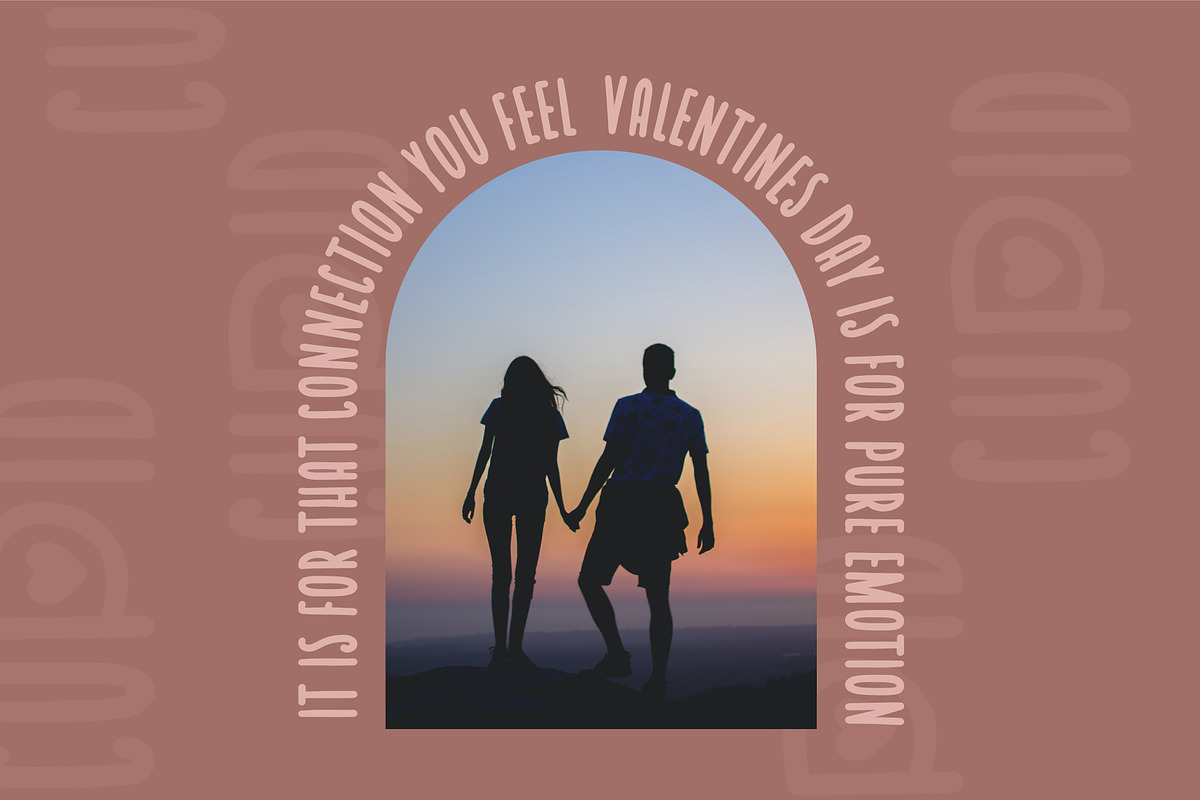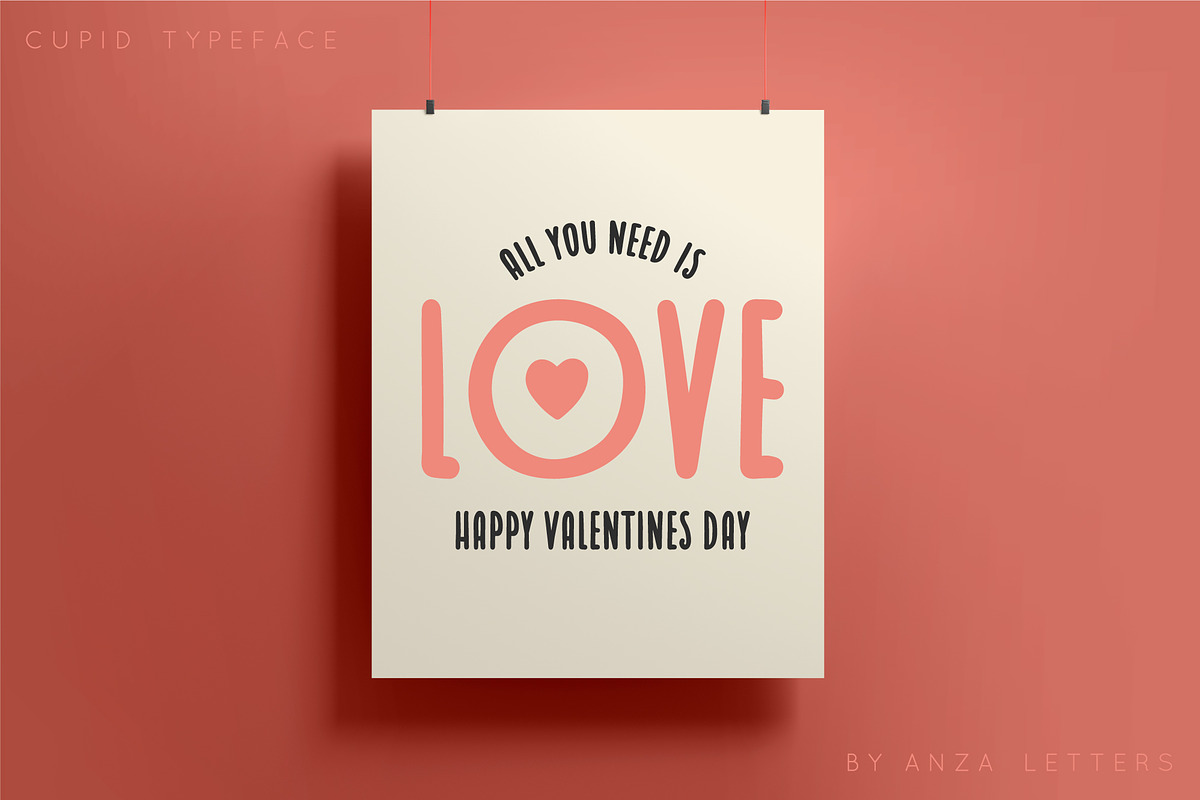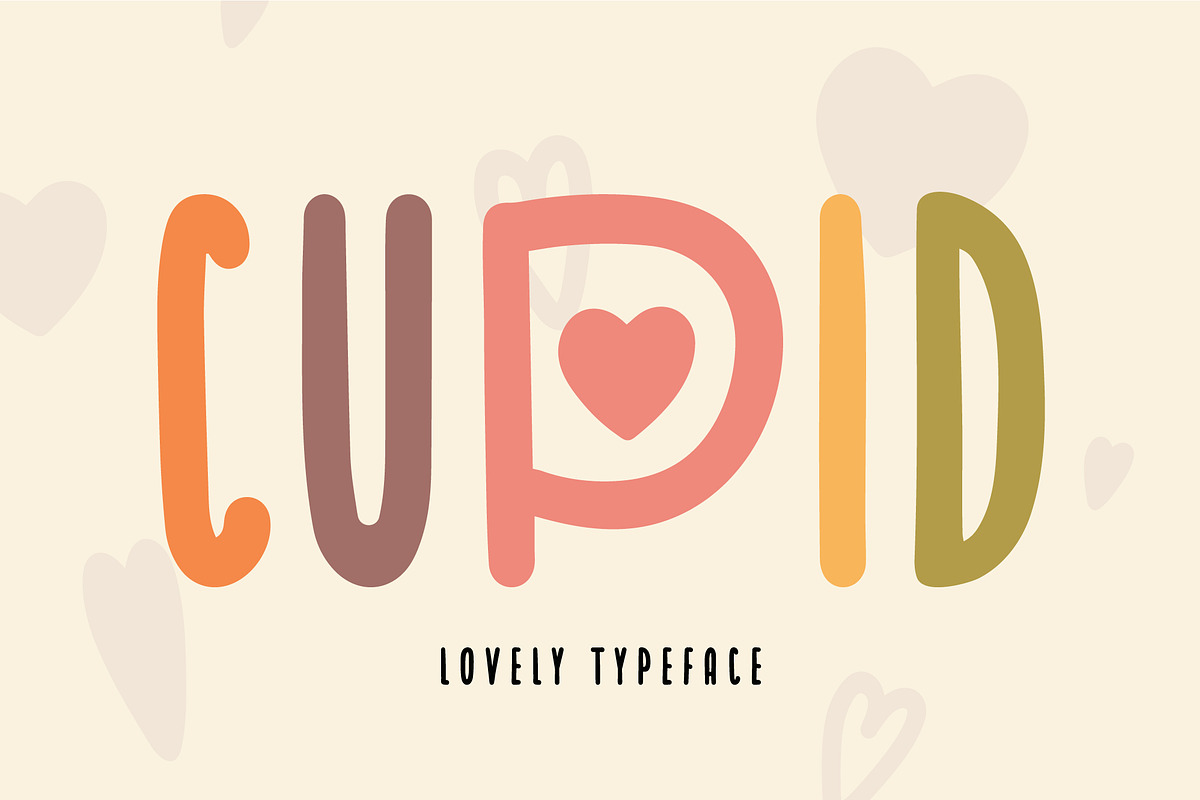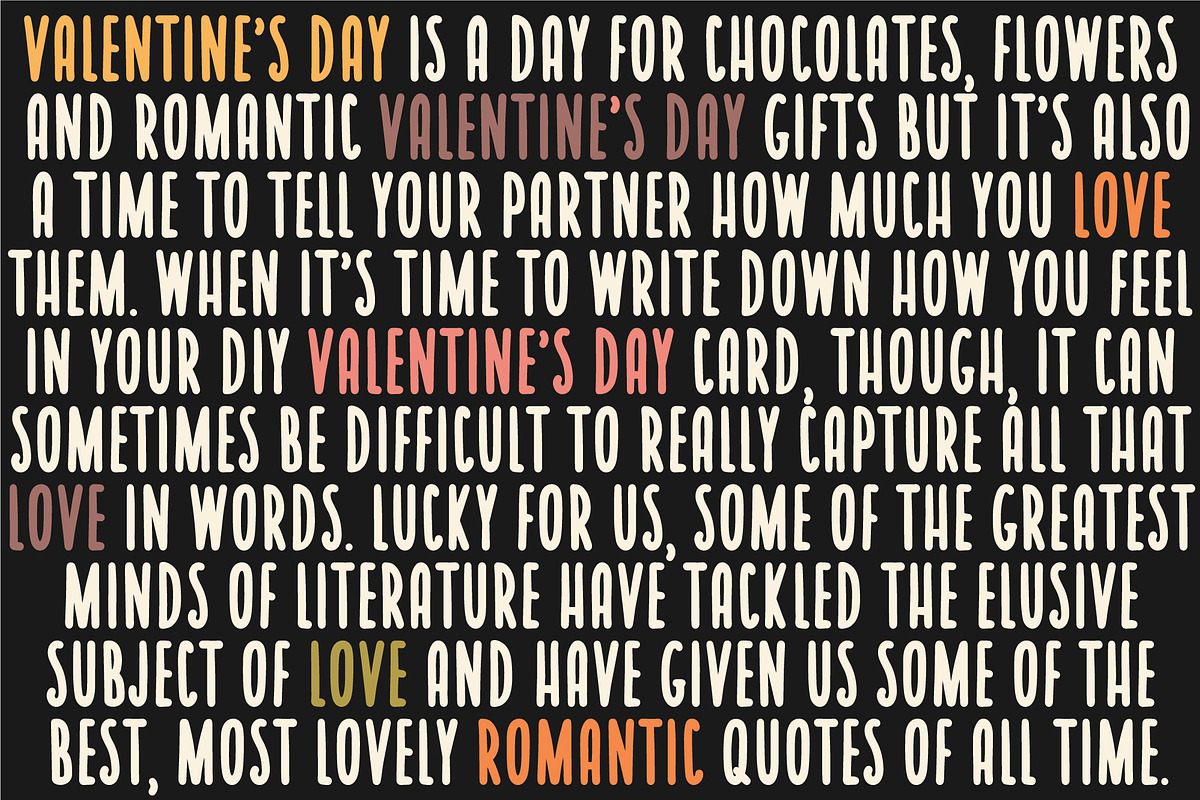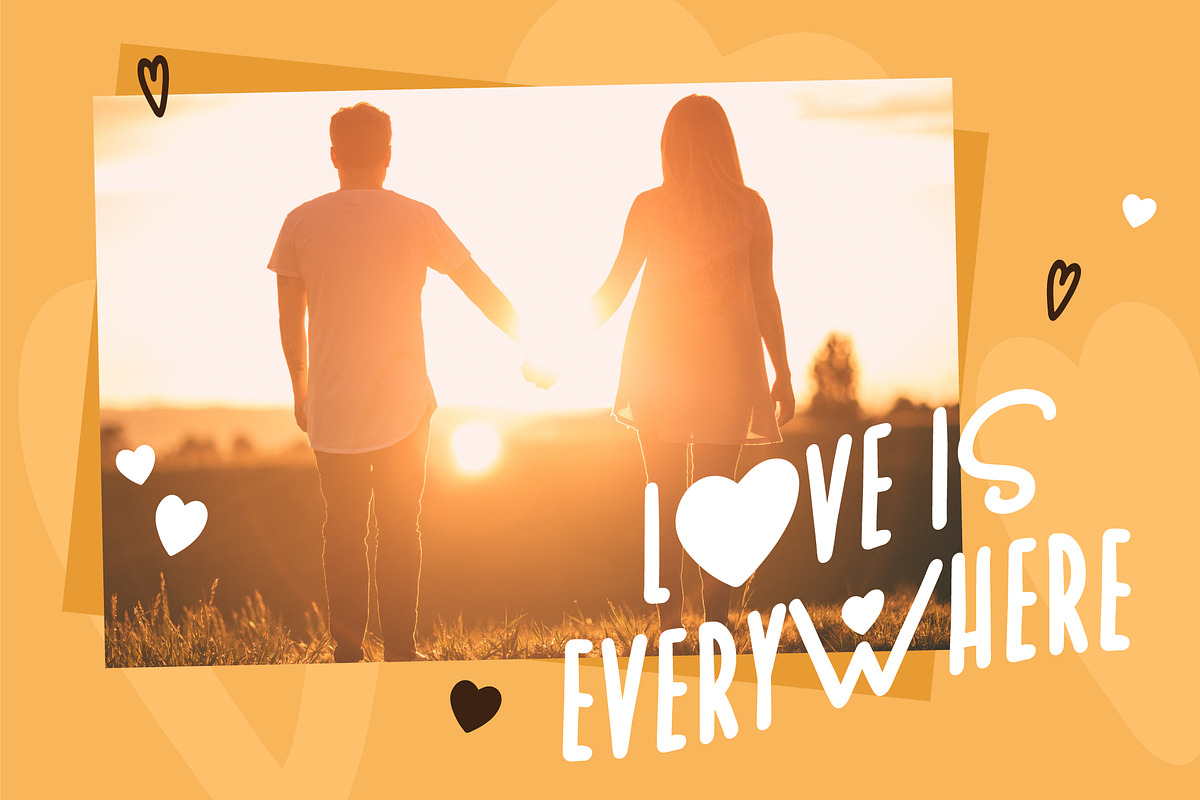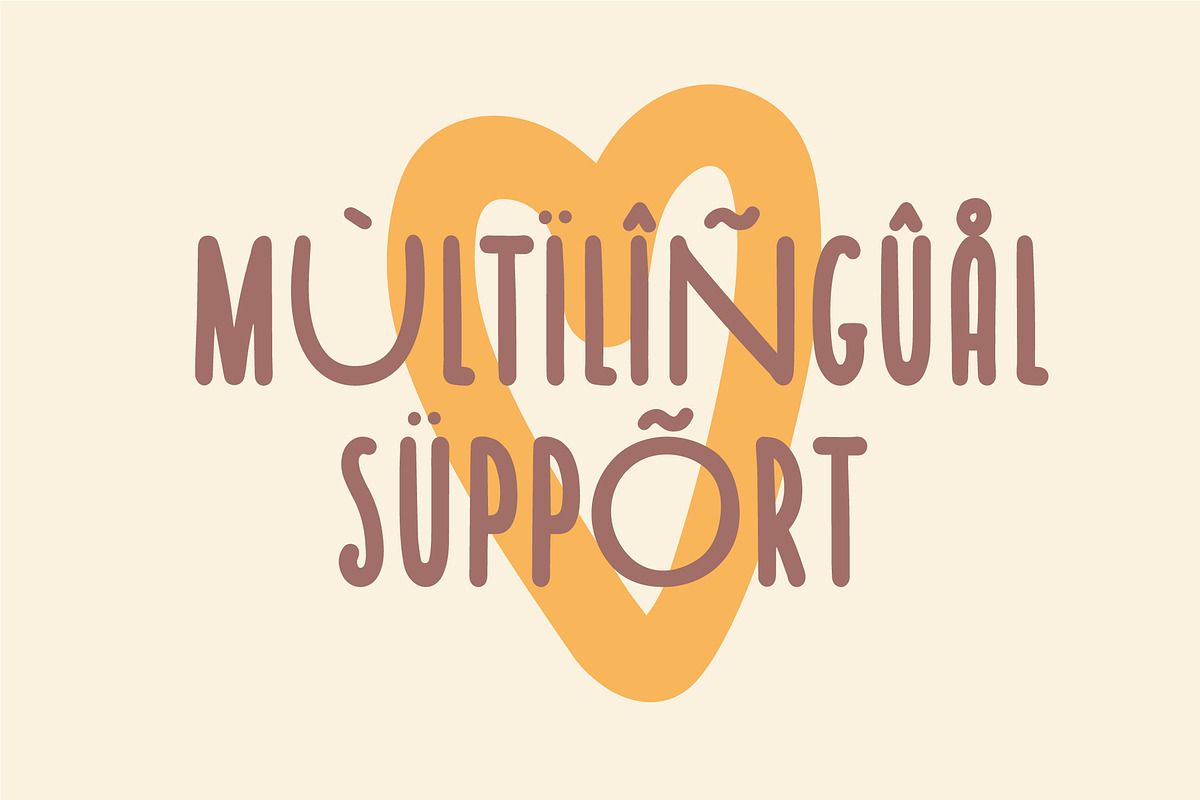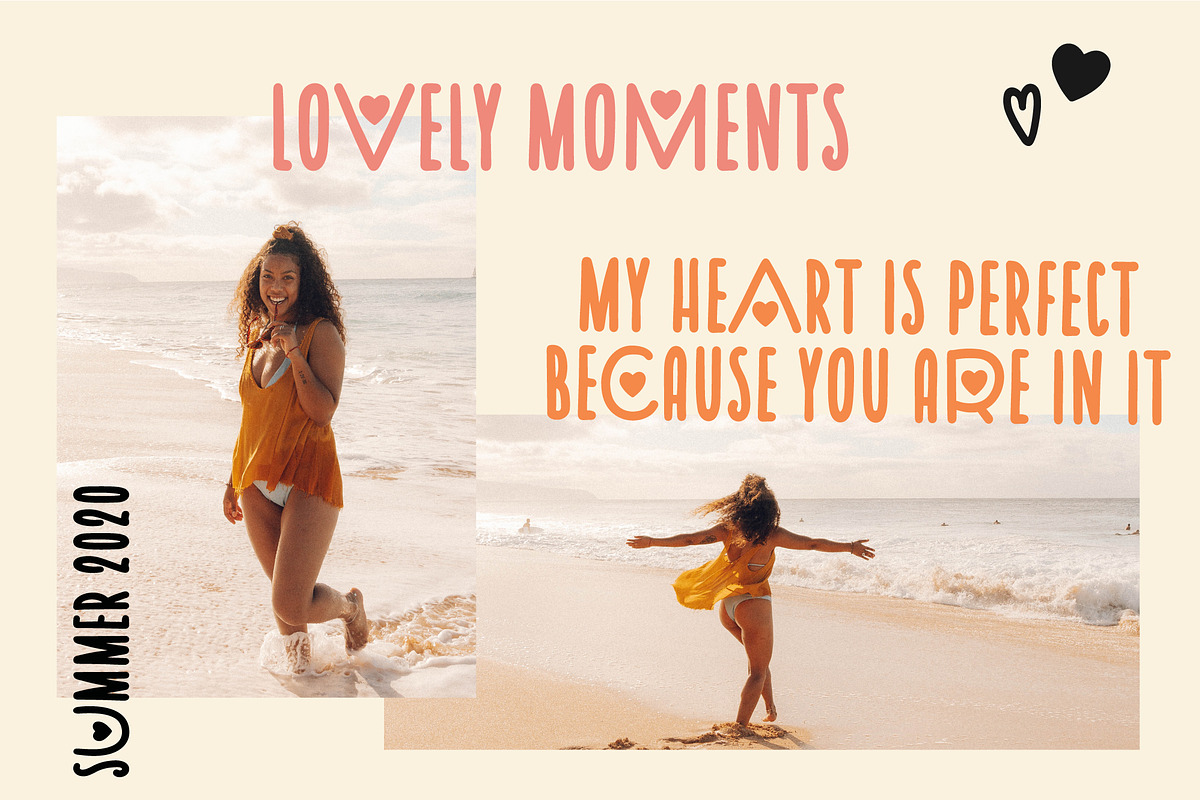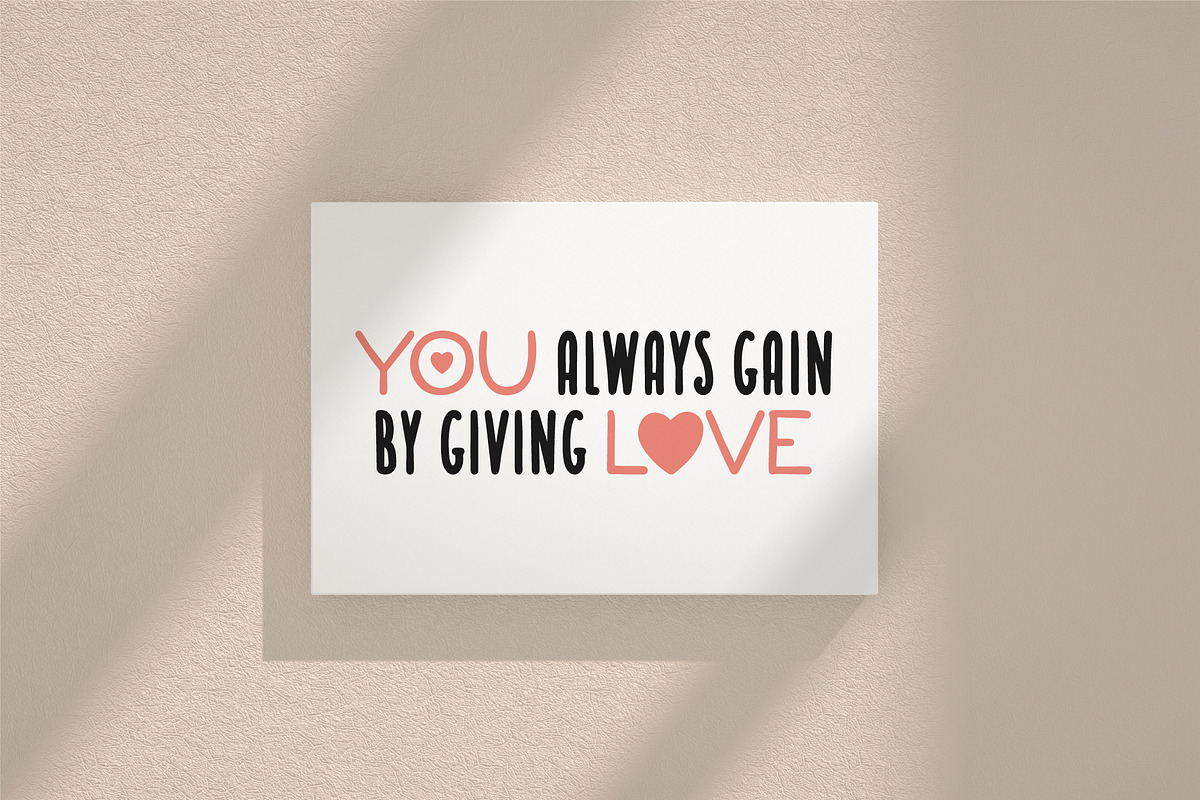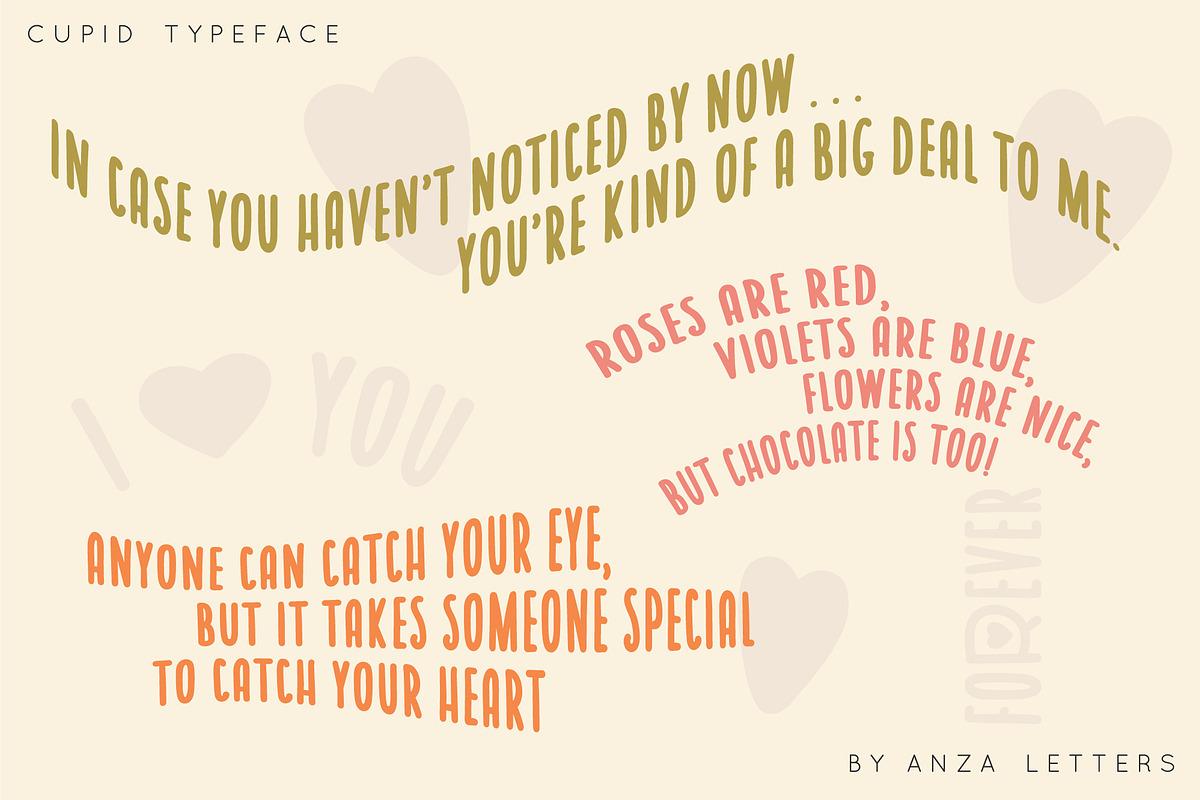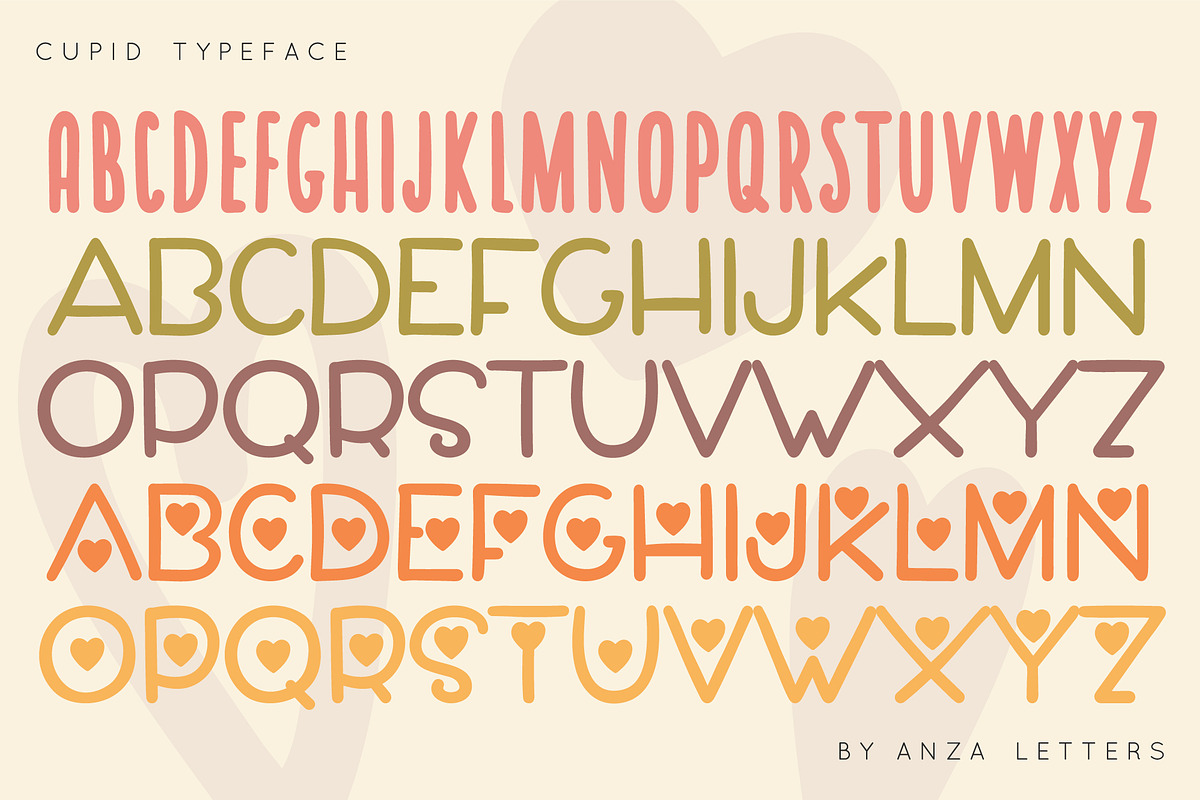
Cupid lovely font | Valentine's Day
CUPID is a new lovely and sweet hand-lettered playful font. A special edition for Valentine's Day. It has a casual handwriting marker style. This font is perfect for headings, flyer, greeting cards, product packaging, book cover, printed quotes, logotype, apparel design, album covers, etc.
CUPID will help you to create special and touching typographical design for hand-written notes, scandinavian or childish projects, for every day or the happiest day in life, summer vacations, baby shower, happy birthday cards. This font is perfect for Valentine's Day design.
CUPID typeface has lots of alternates built into their OpenType features - make sure you have your alternates turned on to get their benefit, so you can play with them to get different looks! Just create the best design and make your projects cosy, funny, truly hand-written realistic and natural.
CUPID font has uppercase letters, alternates, hand-drawn extras, numbers & basic punctuation, multilingual support (French, German, Italian, Norwegian, Portuguese, Spanish, Swedish, Swiss German).